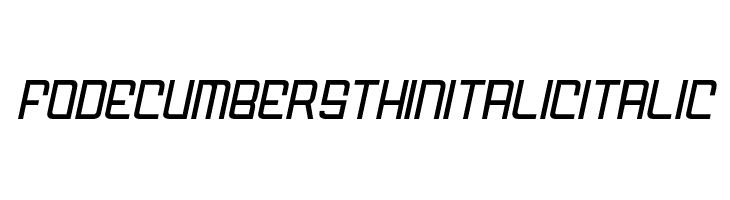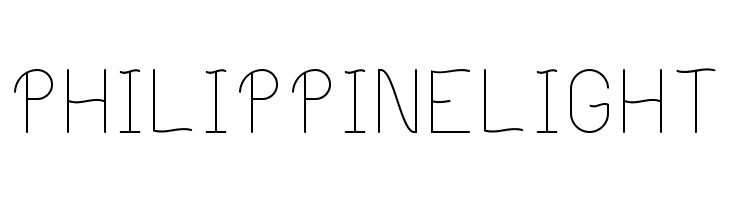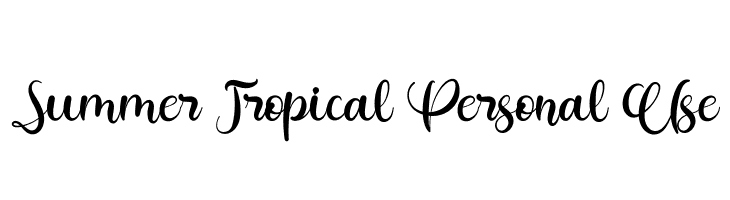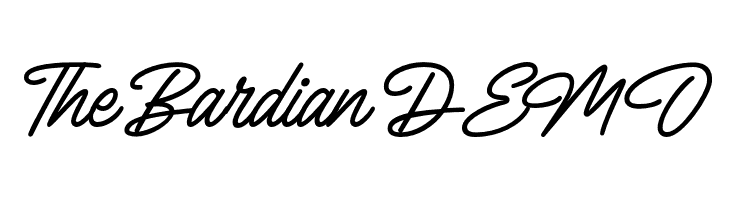
A sleek, italicized font with a modern and futuristic design.
A playful, handwritten font with rounded edges and a casual, friendly vibe.
A bold, playful font with a shadow effect and rounded, irregular characters.
A lively, cursive font with a playful, handwritten style.
A bold, italic, hollow font with a modern, futuristic style.
A minimalist, modern font with thin lines and geometric structure.
A charming and elegant script font with flowing, cursive letterforms.
A bold, distressed font with a grungy, textured style.
A playful, balloon-like font with a bold, italicized style.